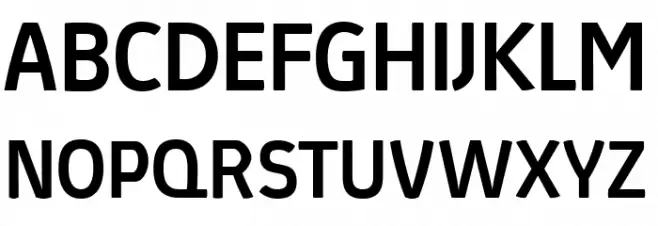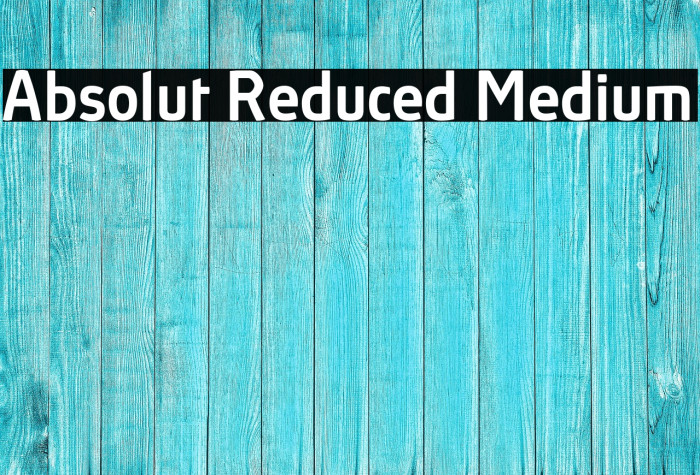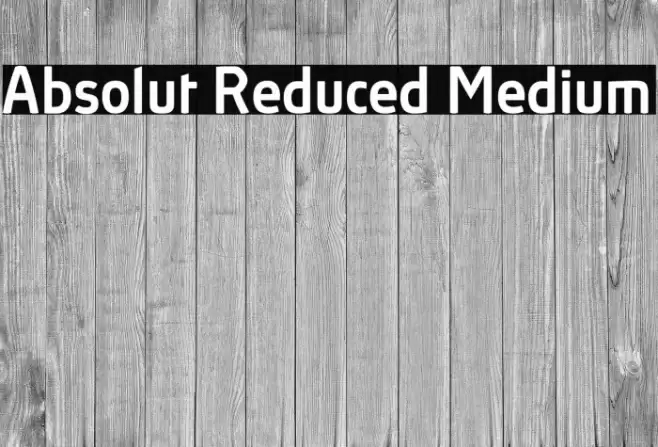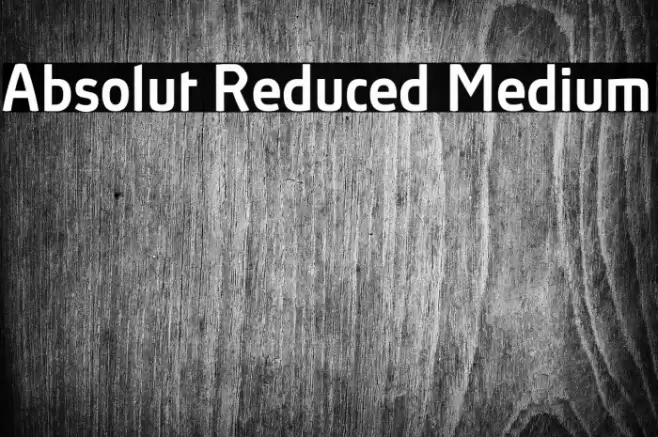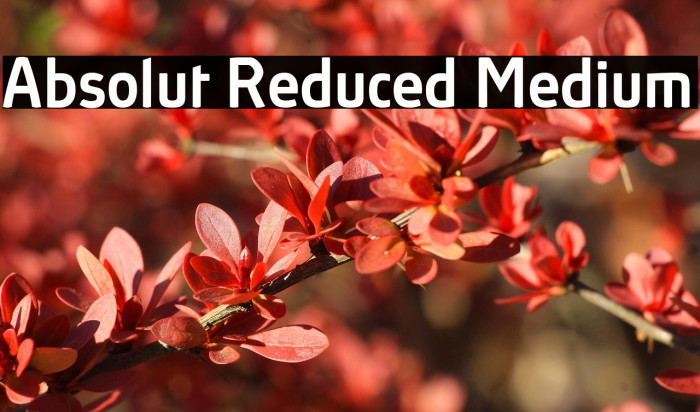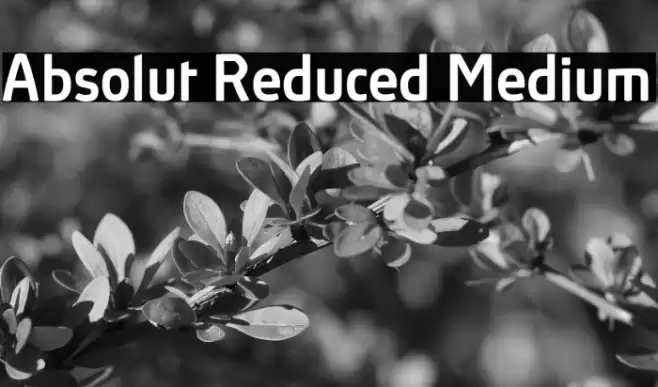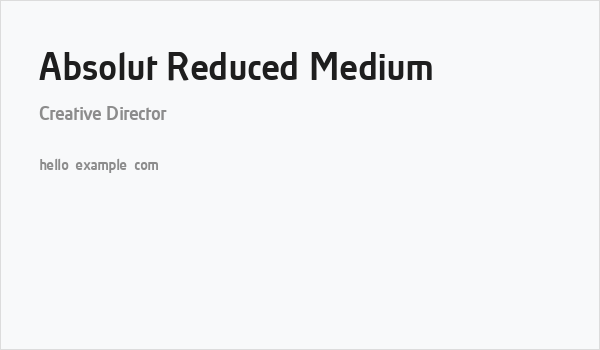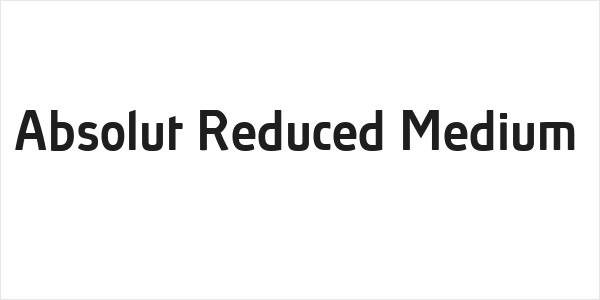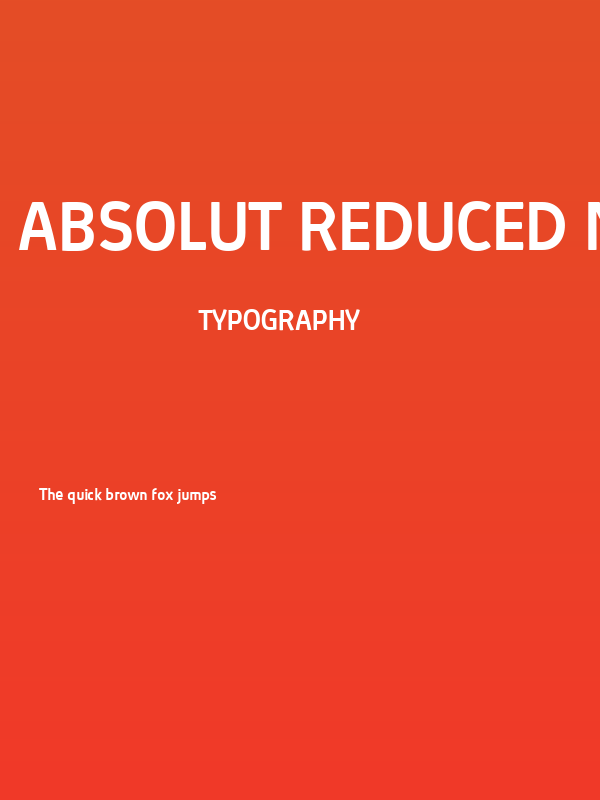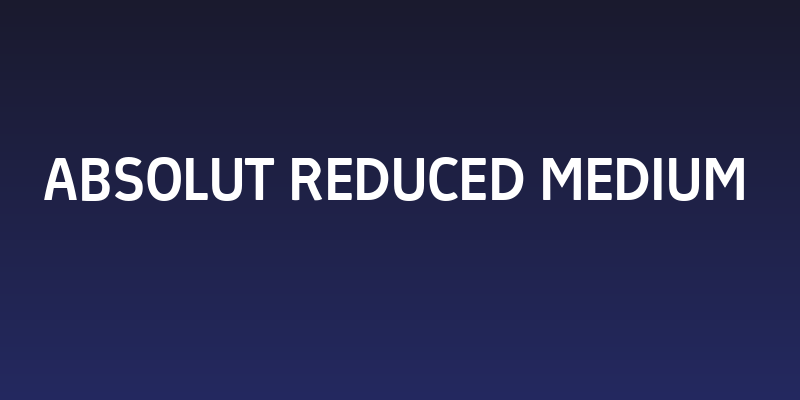
Absolut Reduced Medium Font
Absolut Reduced Medium Description
This font exhibits a clean and modern sans-serif style, characterized by its geometric shapes and uniform stroke widths. The letters are well-balanced with a consistent height, providing a harmonious appearance. The uppercase letters are bold and assertive, while the lowercase letters maintain a friendly and approachable look. The numerals are clear and easy to read, making them suitable for a variety of applications. The special characters are designed to blend seamlessly with the rest of the typeface, ensuring versatility in use.
| Proposed Projects | Ideal for branding, advertising, web design, and editorial projects where clarity and modernity are desired. |